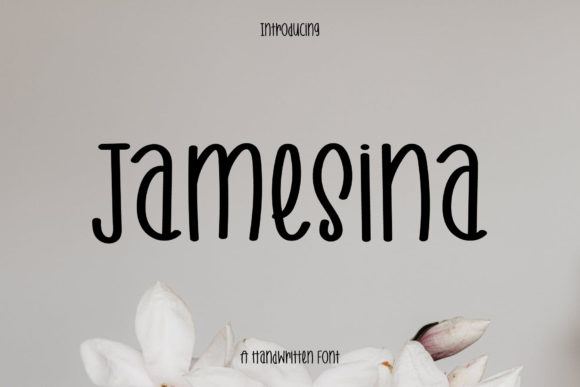
Unleash the enchanting allure of Jamesina Font, a mesmerizing script font that dances with grace across your digital canvas. This captivating creation by Wanida Toffy is not just a font; it's an artistic expression that transforms words into works of art.
Jamesina's casual and friendly demeanor invites warmth and approachability into your designs. Its handwritten charm adds a personal touch that resonates with audiences, making it the perfect choice for text documents that demand attention.
With Jamesina by your side, you'll craft captivating presentations that leave a lasting impression, leaving your audience spellbound. Whether you're a seasoned designer or just starting, Jamesina will elevate your creations with its innate elegance and timeless appeal.
Beyond its visual allure, Jamesina possesses a versatility that makes it an indispensable tool for any creative endeavor. Its ability to seamlessly adapt to various contexts and styles makes it the perfect companion for a wide range of projects.
Immerse yourself in the world of Jamesina Font, where imagination and creativity intertwine to create something truly special. Embrace the beauty of handwritten elegance and watch as your designs bloom into masterpieces.